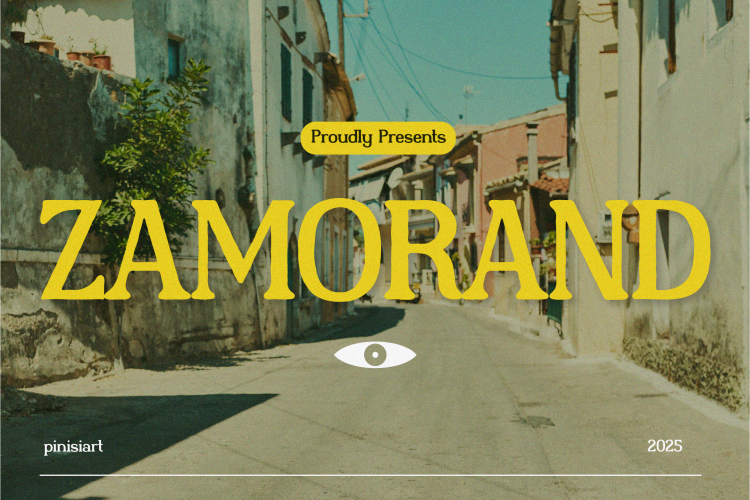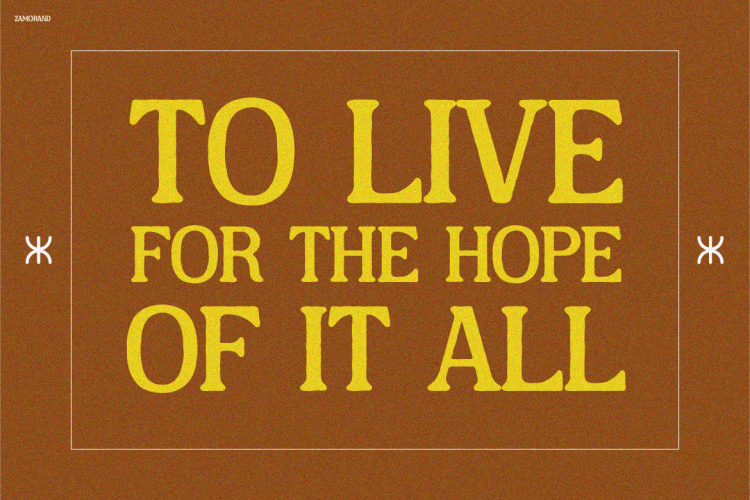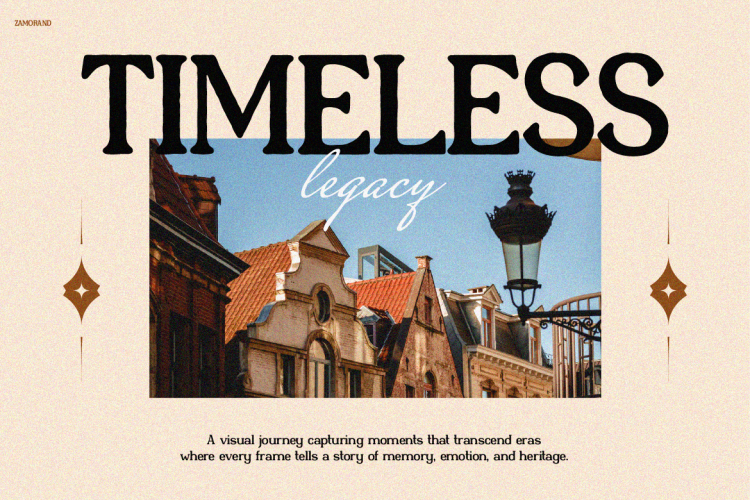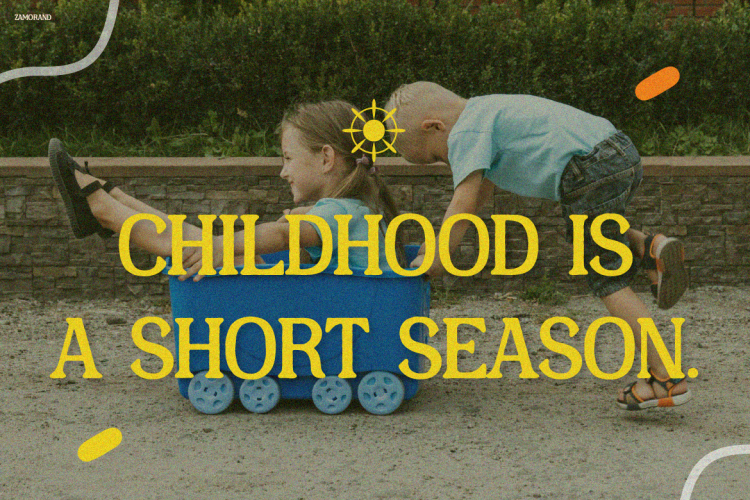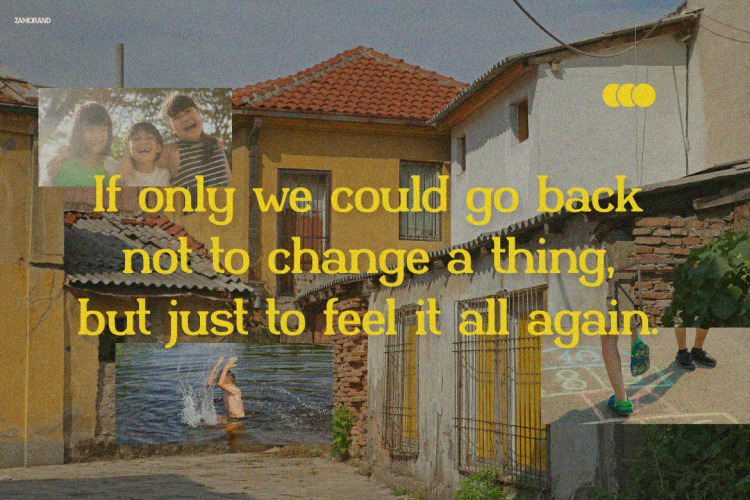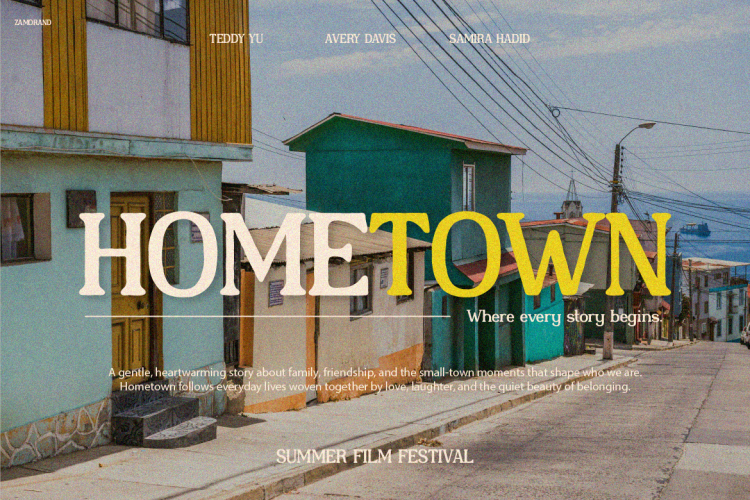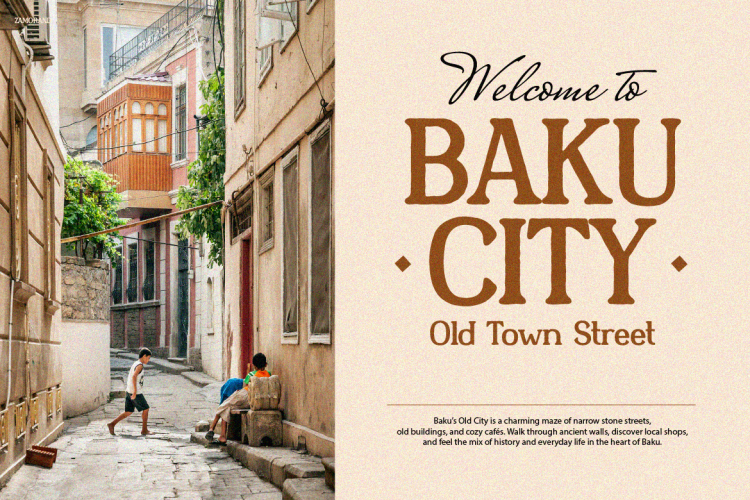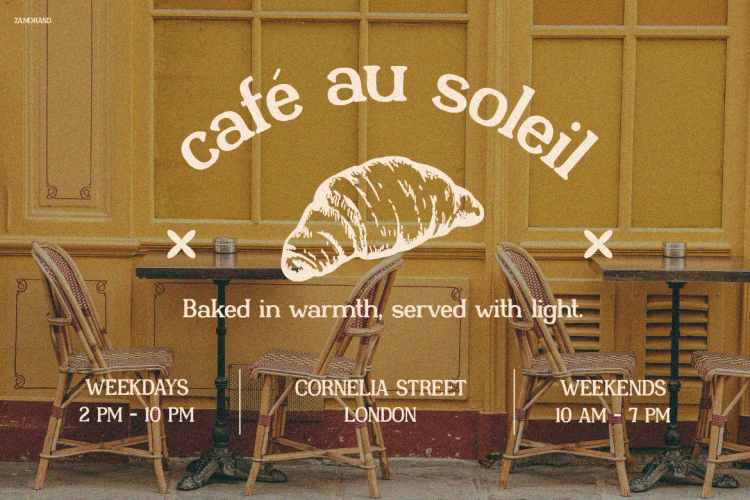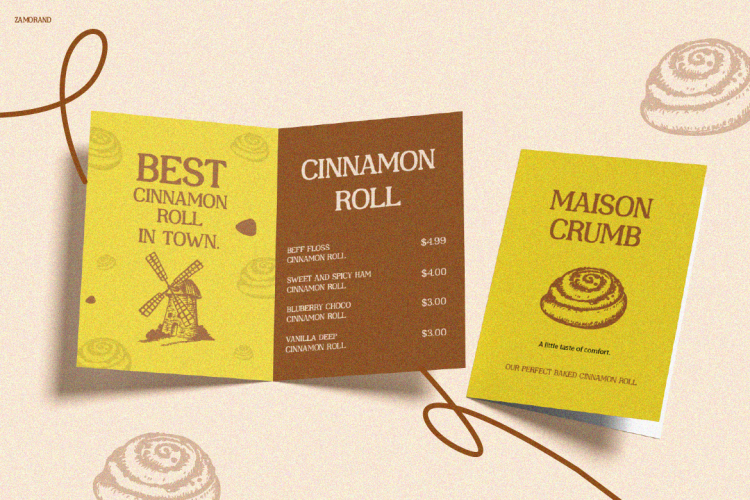
Retro Font ZAMORAND
Retro Font ZAMORAND โ€“ A Touch of Vintage Soul
Retro Font ZAMORAND beautifully captures the warmth and timeless charm of classic typography, inviting viewers to travel back in time through every elegant curve. Unlike ordinary fonts, ZAMORAND blends nostalgic aesthetics with modern readability, making it both stunning and functional. From its balanced serifs to its graceful lines, every letter was carefully designed to tell a story of heritage, elegance, and emotional connection.
Moreover, this font effortlessly bridges the gap between retro allure and contemporary design needs. Whether youโ€™re creating a cafรฉ logo, vintage poster, or emotional quote, ZAMORAND adds depth and character to your work. Its strong structure paired with gentle curves produces a unique visual rhythm โ€” one that feels nostalgic yet remarkably current. As a result, your designs gain both sophistication and approachability, ensuring they stand out beautifully across digital and print media.
Perfect For Designers and Creative Storytellers
Because of its versatile design, Retro Font ZAMORAND suits a wide variety of creative purposes. Itโ€™s perfect for graphic designers, branding specialists, cafรฉ owners, lifestyle bloggers, photographers, and creative studios who want to bring a touch of vintage emotion into their projects. Additionally, this font works wonderfully across different themes and formats, allowing you to express stories with warmth and personality.
You can use it for:
• Elegant vintage posters and travel advertisements
• Cozy cafรฉ menus, restaurant branding, and packaging design
• Charming book covers and editorial spreads
• Heartfelt Instagram quotes and digital storytelling
• Warm, nostalgic branding for lifestyle and travel projects
Furthermore, ZAMORANDโ€™s clear letterforms ensure excellent legibility, even when scaled or stylized. This makes it a reliable choice for both display and paragraph text, giving your designs harmony and professional appeal. Whether youโ€™re highlighting an emotion, a memory, or a brand identity, this typeface supports your vision gracefully.
Bring Nostalgia to Life
Ultimately, Retro Font ZAMORAND isnโ€™t just a typeface โ€” itโ€™s an artistic experience that transforms ordinary text into heartfelt expression. By combining vintage soul with modern sensibility, it allows your designs to speak with authenticity and depth. As you use it in various projects, youโ€™ll notice how easily it enhances mood, tone, and storytelling.